Custom numerals for the Ulster Bank five and ten pound notes
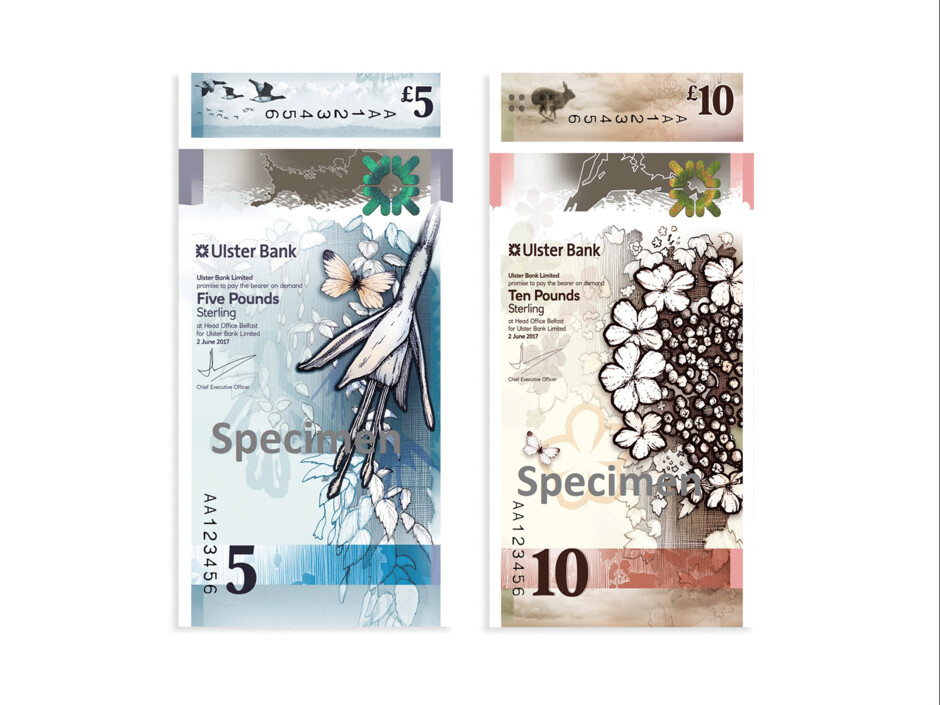
Custom numerals for the Ulster Bank five and ten pound notes
Edinburgh based service design agency Nile and Glasgow designers O Street approached Fontsmith founder Jason Smith as they were working with Ulster Bank to design new £5 and £10 notes. The ideas for the notes were based around the concept of ‘living in nature’ with an unusual upright design. Jason, who was born and bred in Northern Ireland, was perfectly placed to design the custom numerals to complement the note designs.
Nile had run workshops in Northern Ireland and established key themes for the bank notes. Visual references of the sea, migration and agriculture were used to highlight N.Ireland as a place people pass through and a place of growth.
Jason Smith said: ‘There is so much thought and involvement from experts as well as the general public in the design of banknotes, it was fantastic to be part of it. For me personally, it’s one of those projects that my family back home will actually be impressed by’.
Jason’s Mum happened to be on a weekend trip in Northern Ireland at the time and agreed to help us with some field work. She took some pictures of traditional lettering styles seen on signage and the milestones around the loughs and country side in the places she passed. The numerals used in roadside milestones caught our eye and formed the inspiration for our design. We started with the number ‘5’, sketching ideas by hand then refining them on screen. Once we had crafted the ’5’ we moved onto the ‘1’, ‘0’ and ‘£’ exploring different routes. We tried various layered designs that included the sketches in the background and some technical aspects of drawing type. The end result is a clear and modern numeral that has a nod to traditional stone lettering on the roadsides and milestones of Northern Ireland.
David Freer Founding Partner at O Street said: ‘Jason and I first worked together when he had just set up Fontsmith. He was a natural choice when we wanted authentic Northern Irish insight and type excellence.’